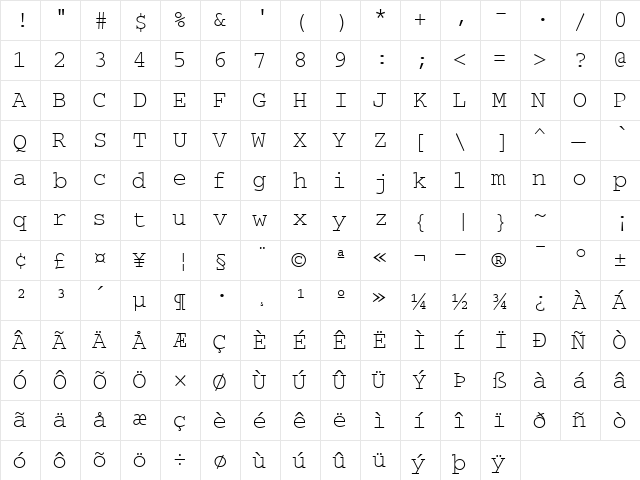
KerusaSSK Regular Font Preview
KerusaSSK Regular
Design Context for KerusaSSK Typeface
KerusaSSK offers clean, dependable letterforms without strong stylistic allegiance, making it a practical choice for designers who need flexibility.